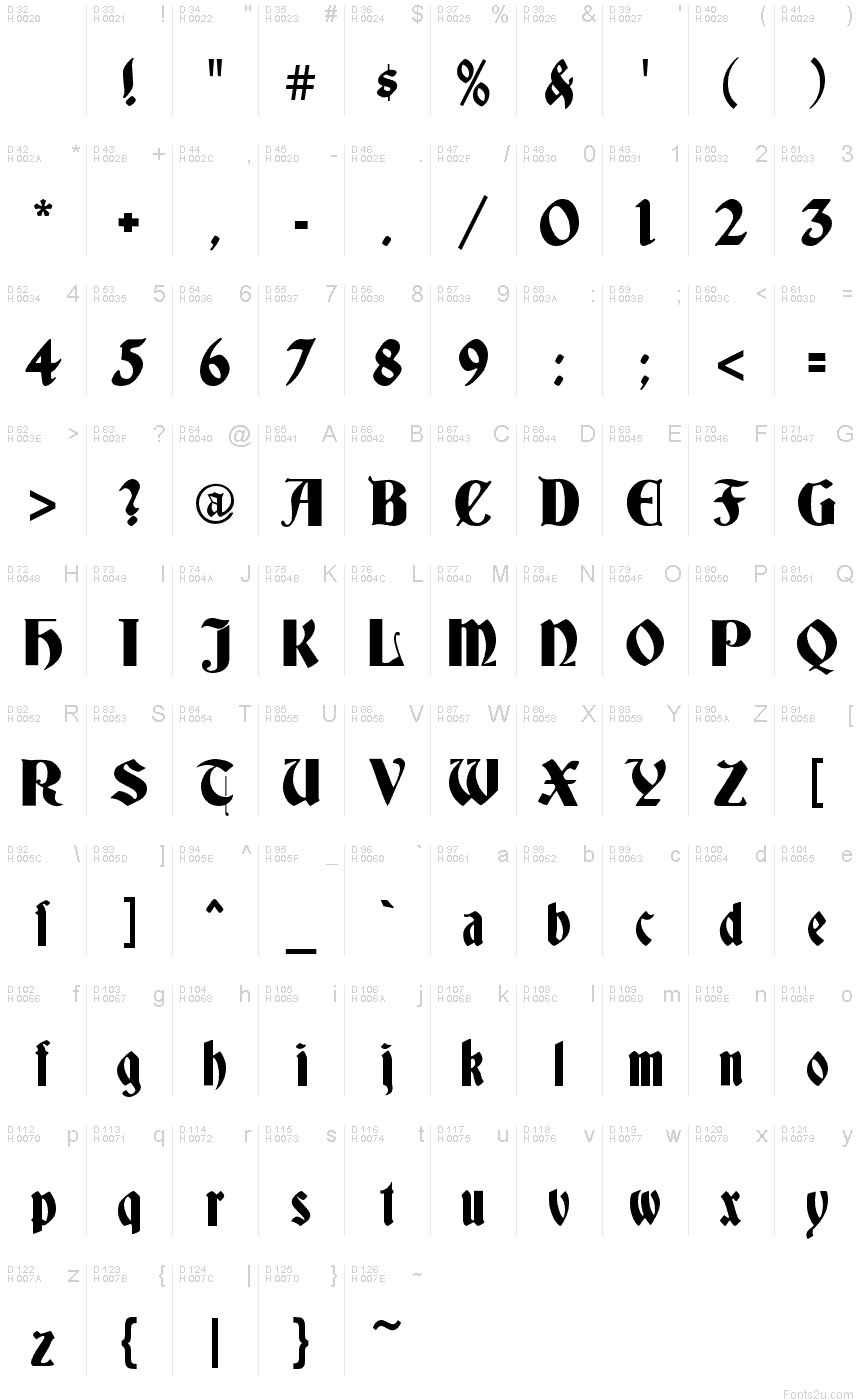
Germania
Germania, designed by Dieter Steffmann of Typographer Mediengestaltung, is a free blackletter font with a forceful medieval profile. Its broad strokes, pointed joins, and diamond-like cuts produce dense, sharply articulated letters.
Medieval themes make it a convincing choice for historical publishing and fantasy game titles. Its carved-looking edges also suit heritage festival signage and labels for traditional ales. Across those settings, the solid angular forms can function almost like heraldic emblems, linking the wording to old manuscripts, tavern signs, and armor.